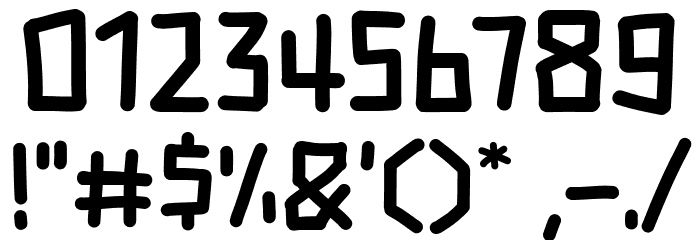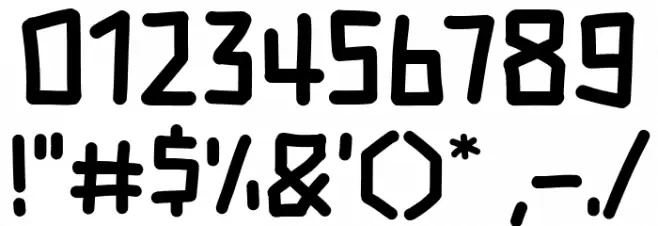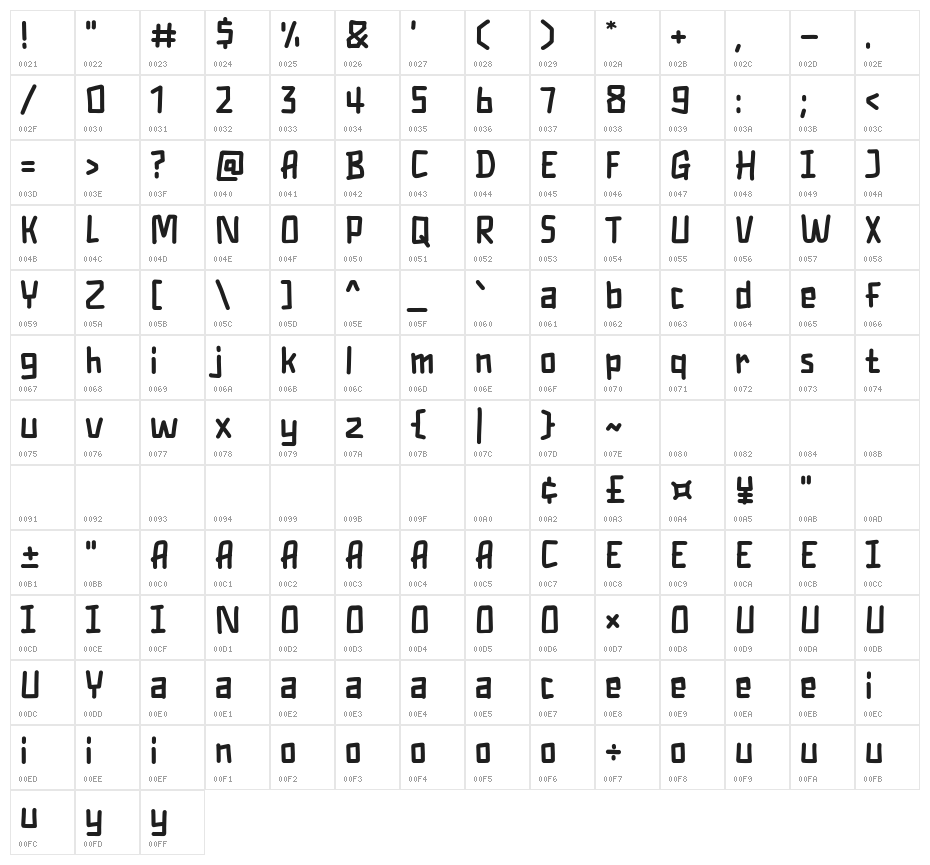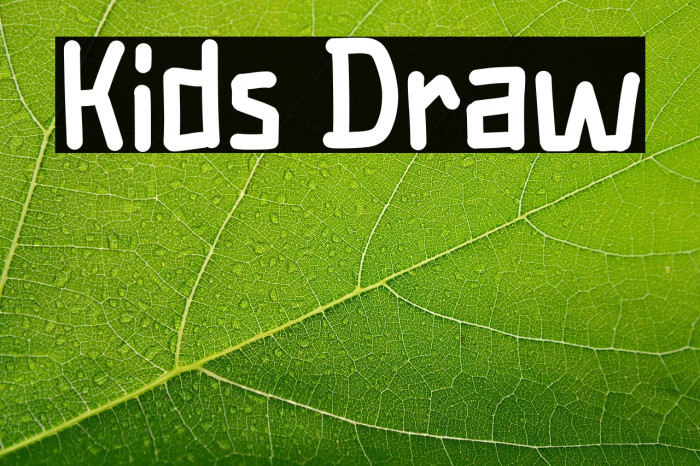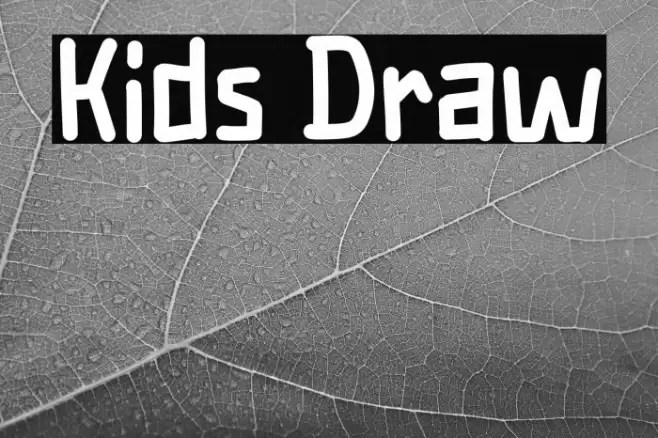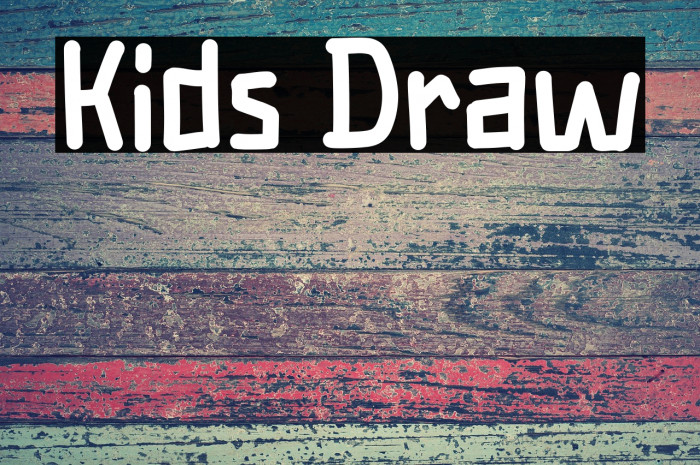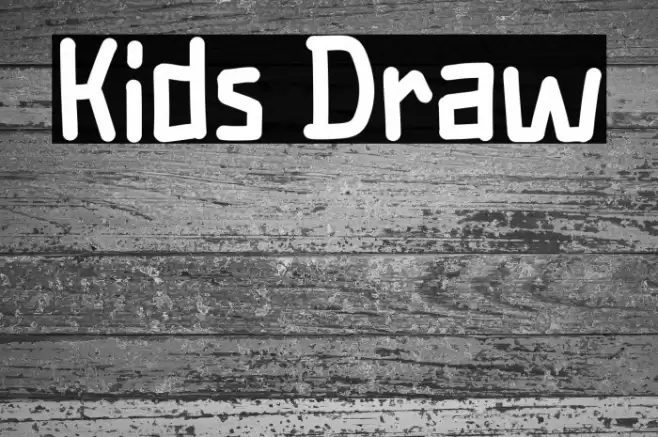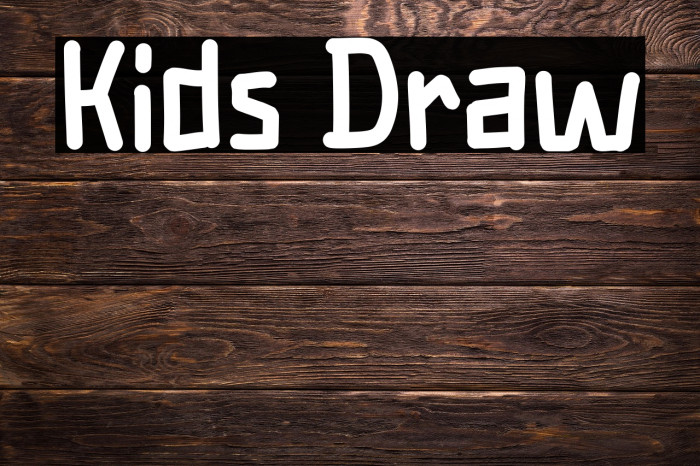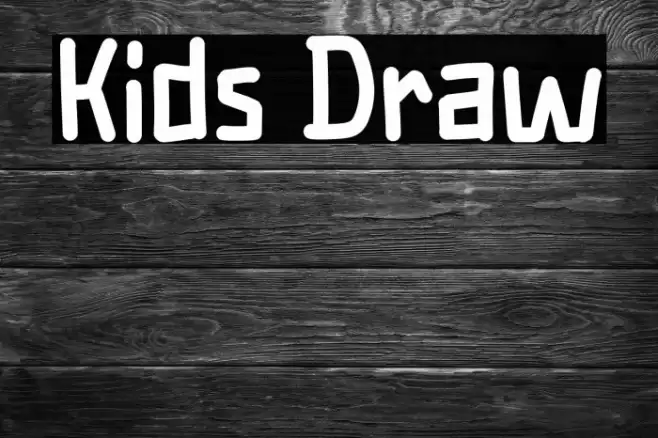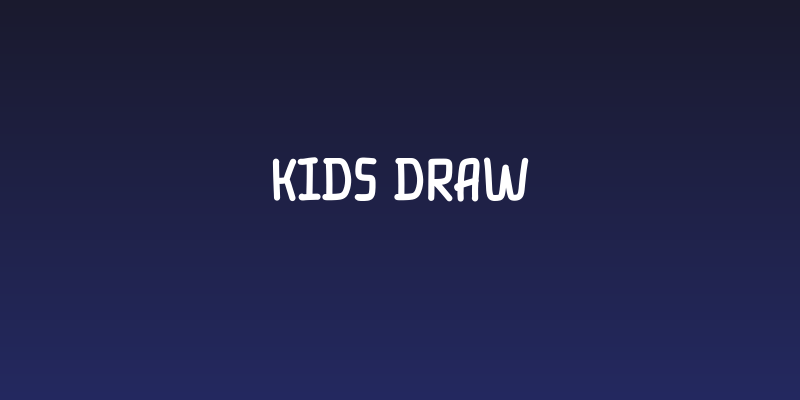
Kids Draw Font
| समग्र शैली | Playful, Whimsical |
| उपयोग का मामला | Headlines, Children's books, Creative projects |
| सुझाए गए प्रोजेक्ट | Ideal for children's books, educational materials, playful branding, and creative projects that require a youthful touch. |